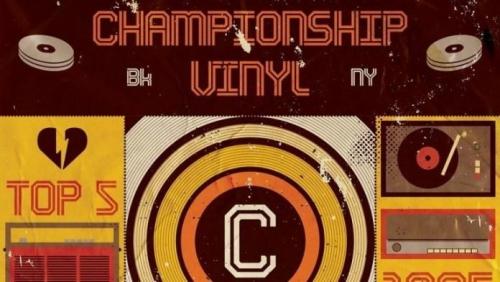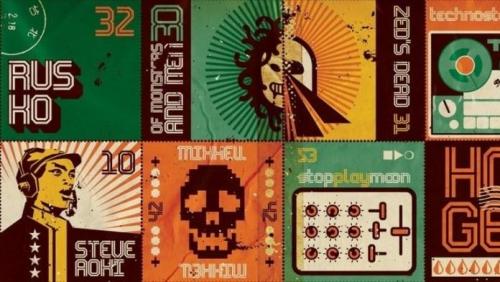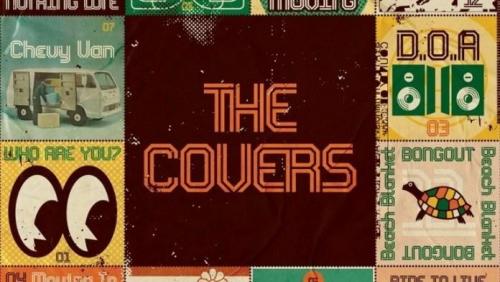
Thanks for checking out Wim Pro Font – is new display typeface. Can make it easier to convey the message in your design. Use for awesome display, Logo, labeling, clothing, movie sceen, poster, movie title, gigs, album covers, logos, and much more.
- Designer: Rafael Nascimento